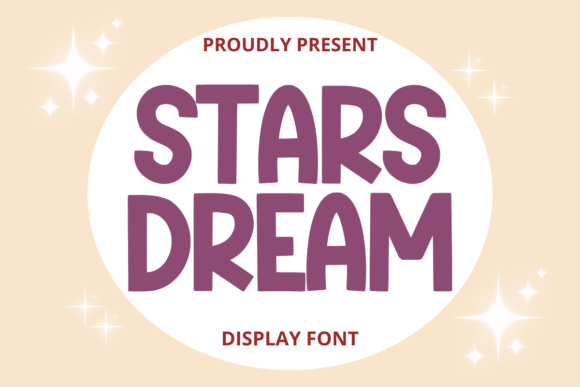
Introducing Stars Dream Font, the ultimate choice for all your print design needs. Created by the talented SiapGraph, this font is not only visually stunning but also packed with personality and charm. Whether you're working on a poster, brochure, or any other print project, Stars Dream is here to make your designs shine.
With its playful and casual appearance, Stars Dream Font adds a touch of whimsy to any design. It effortlessly captures attention and conveys a sense of fun and creativity. Say goodbye to boring and predictable fonts – Stars Dream is here to bring your creations to life!
What sets Stars Dream Font apart is its versatility. Regardless of the topic or theme, this font seamlessly adapts to your design, enhancing its visual appeal. From children's books to event invitations, Stars Dream Font adds a delightful twist that will captivate your audience and leave a lasting impression.
Imagine the possibilities! With Stars Dream Font, you can effortlessly create eye-catching headlines, captivating titles, and attention-grabbing slogans. Its unique style will make your print materials stand out from the crowd, ensuring that your message is heard loud and clear.
But it doesn't stop there. Stars Dream Font also offers incredible ease of use. With its user-friendly interface and extensive character set, you'll have no trouble finding the perfect letterforms to convey your desired message. Its smooth curves and clean lines make it a joy to work with, saving you time and effort in the design process.
Stars Dream Font is more than just a font – it's a creative partner that sparks inspiration and transforms ordinary designs into extraordinary works of art. It brings a sense of joy and excitement to your projects, making them unforgettable and irresistible.